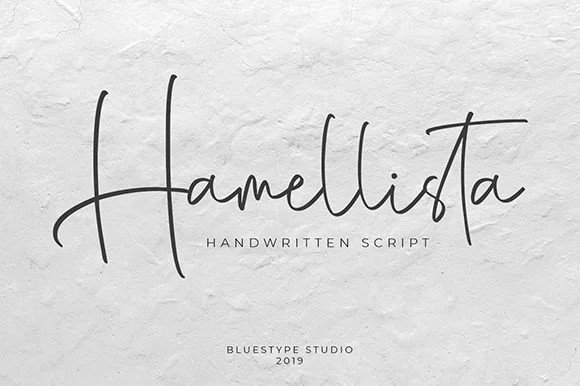
Hamellista Script Font
Hamellista Script Font – This is a handwritten signature font. These two lovely fonts would be perfect to combine in your design. we develop Its with natural and fresh look, made with hand painted and carefully crafted! It’s designed and shared by Bluestype Studio. Hamellista Handwritten is an incredibly stunning script that will turn any design idea into a true standout! The natural hand writing script is suitable for you who needs a typeface for headline, logotype, apparel, invitation, branding, packaging, advertising etc. This typeface is comes in uppercase, lowercase, punctuations, symbols & numerals, stylistic set alternate, ligatures, etc also support multilingual.